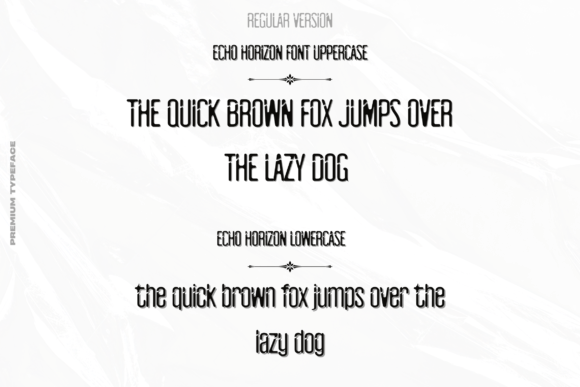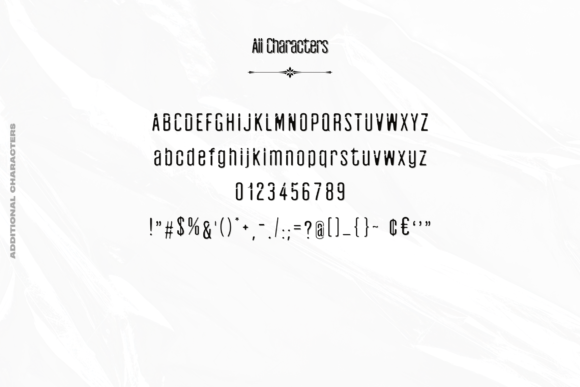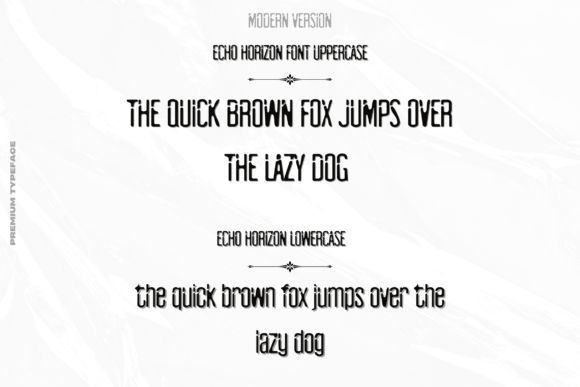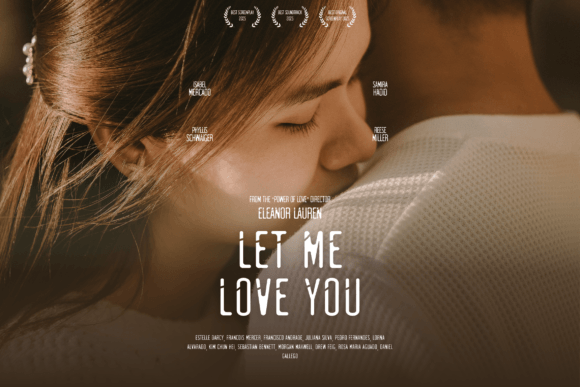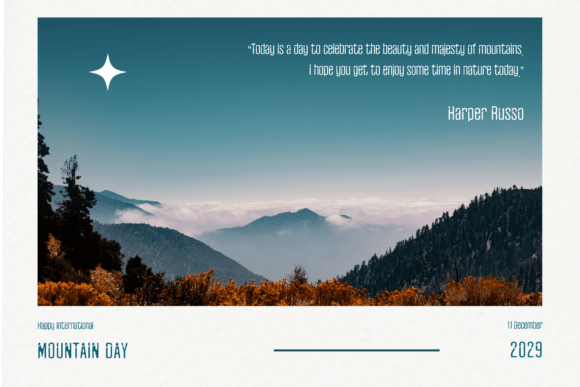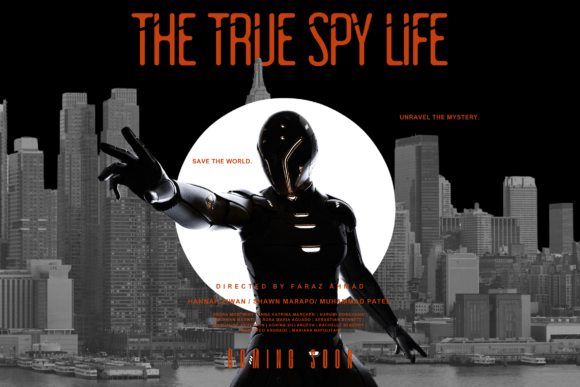
Introduction to Echo Horizon Font
Introducing the Echo Horizon Font Family – a dynamic duo of 2 distinct styles, streamlined to strike an impeccable balance of contemporary sophistication.
With its refined contours and minimalist aesthetics, Echo Horizon is an ideal choice for a myriad of creative projects This elegant typeface stands proud in all caps, evoking an air of cultured refinement.
Key Features of Echo Horizon Font